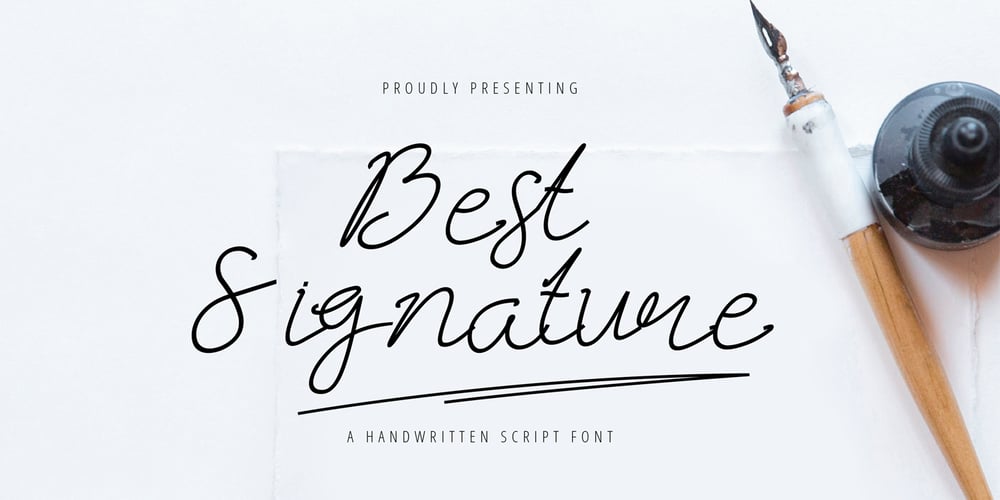
Best Signature
Best Signature font
Best Signature Font Family was designed by Andrea Zudip Aggasi and published by Nirmalagraphics. Best Signature contains 1 styles and family package options. Best Signature is a font in modelled after my own signature style. This font also works well when used for magazines, brochures, flyers, Instagram posts, as well as themes for women. Best Signature includes ligatures and expanded multi-lingual support.